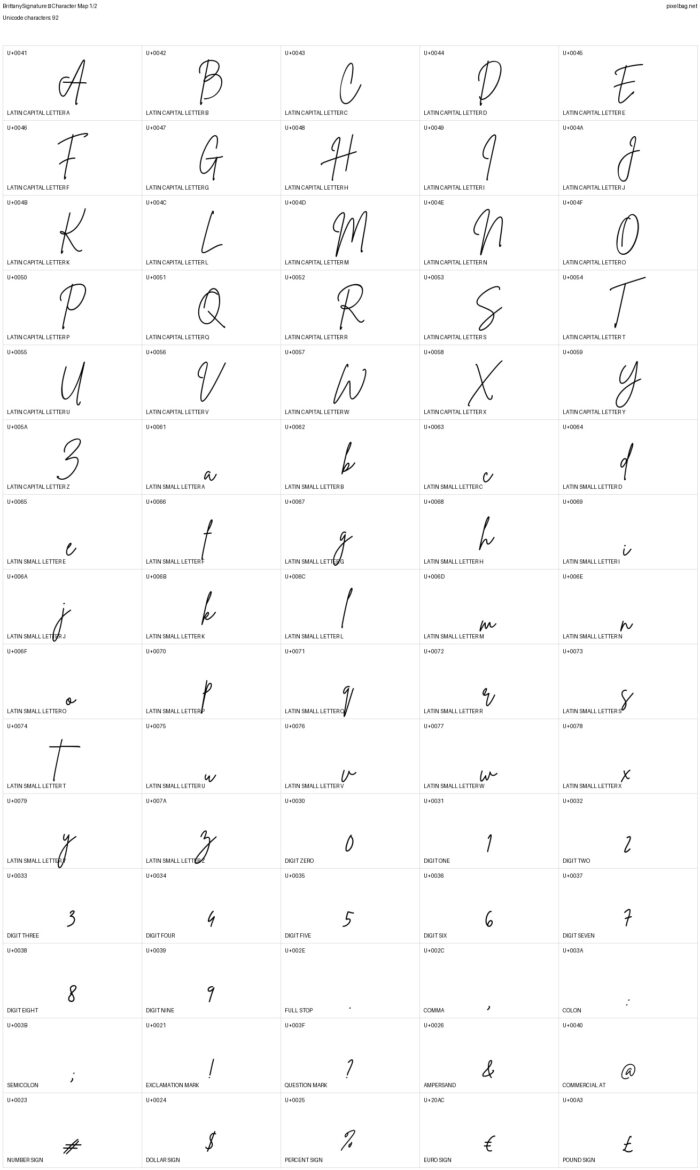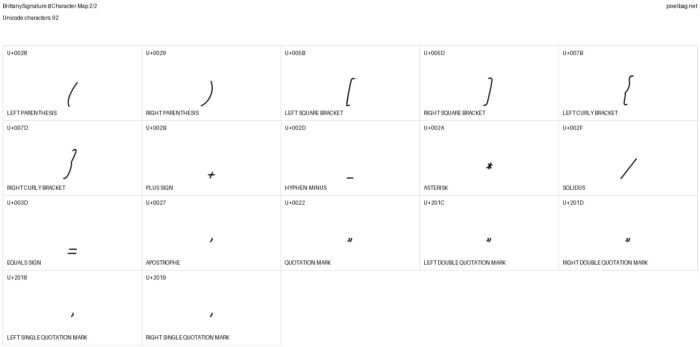
Brittany Signature Font
Brittany Signature is a handwritten script font designed by Creatype Studio. Its connected letters, thin strokes and extended flourishes create the loose appearance of a natural signature. The font works particularly well for names, wedding stationery, logos, packaging and photography watermarks.
About Brittany Signature
Brittany Signature uses connected lowercase letters, narrow proportions and long finishing strokes to imitate quick handwritten lettering. The variation between the letterforms keeps names and short phrases from looking overly mechanical.
The font is most effective at medium and large sizes, where its thin lines and flourishes remain visible. Use it for a name, short wordmark or decorative accent rather than long paragraphs. Pairing it with a simple serif or sans serif font will keep the rest of the layout readable.